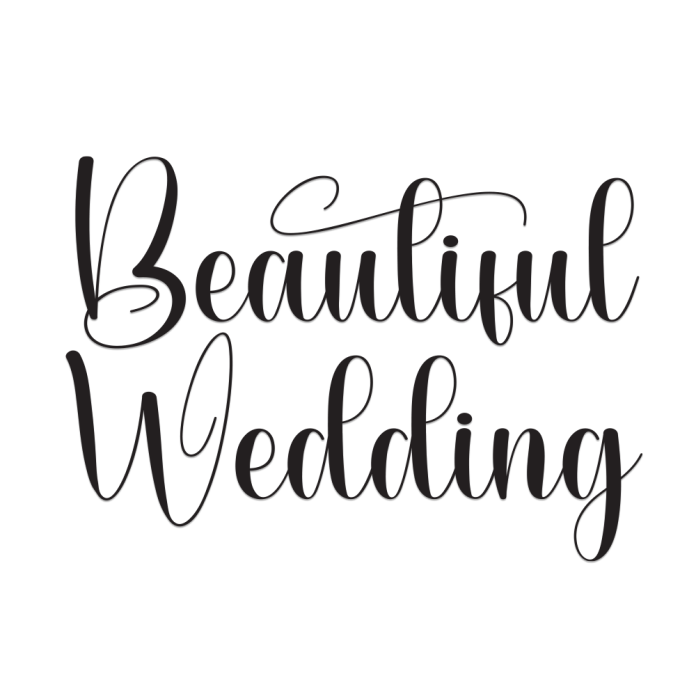
Beautiful Wedding is a graceful handwritten font designed to bring romance and elegance to your designs. With its flowing strokes and soft curves, this font is perfect for wedding invitations, bridal logos, romantic quotes, event branding, and anything that needs a personal, heartfelt touch.
Let your love story shine through with this timeless script.
Uppercase & Lowercase Letters
Elegant Handwritten Style
Perfect for Weddings & Romantic Projects
Numbers & Punctuation
Celebrate love in every letter with Beautiful Wedding, a font made for unforgettable moments.